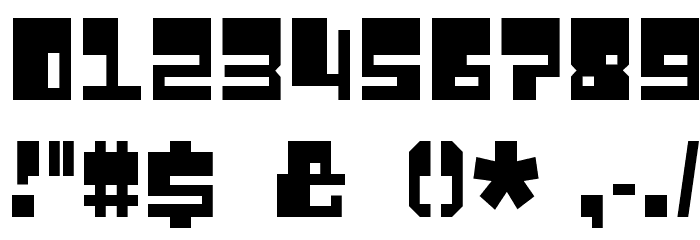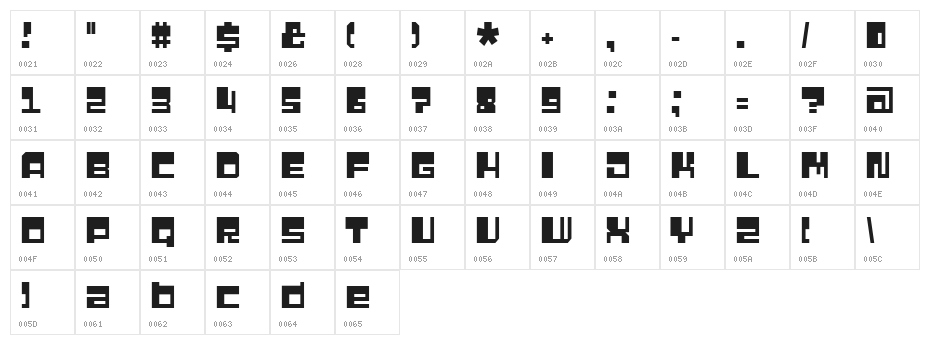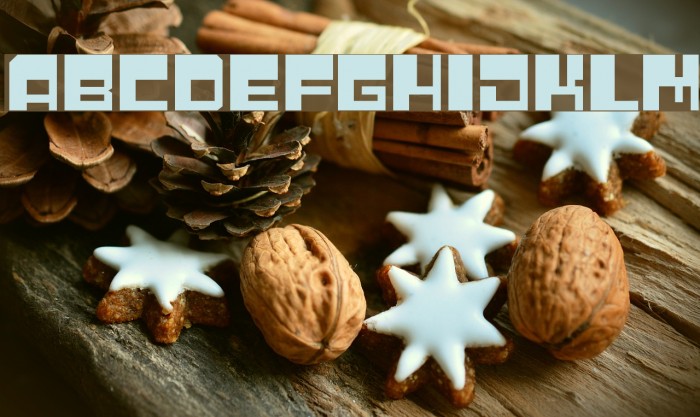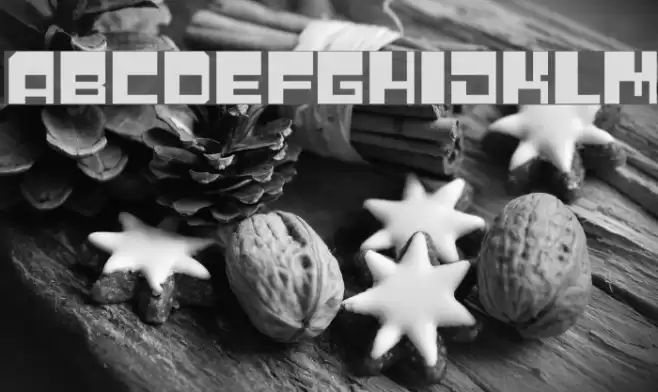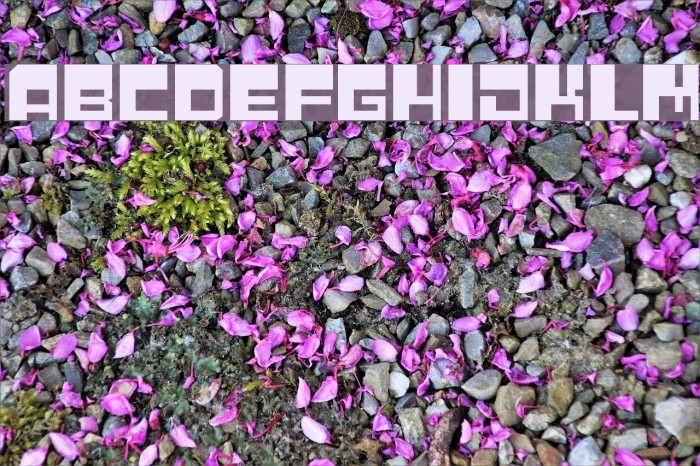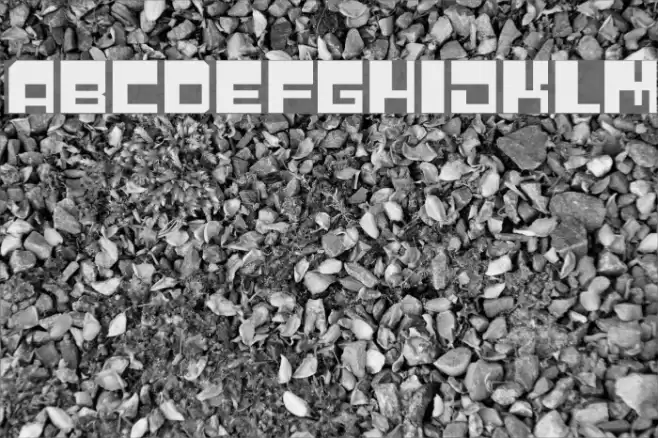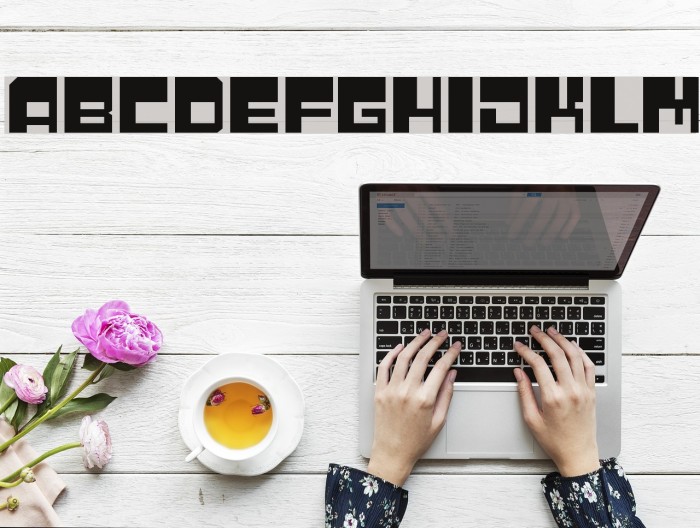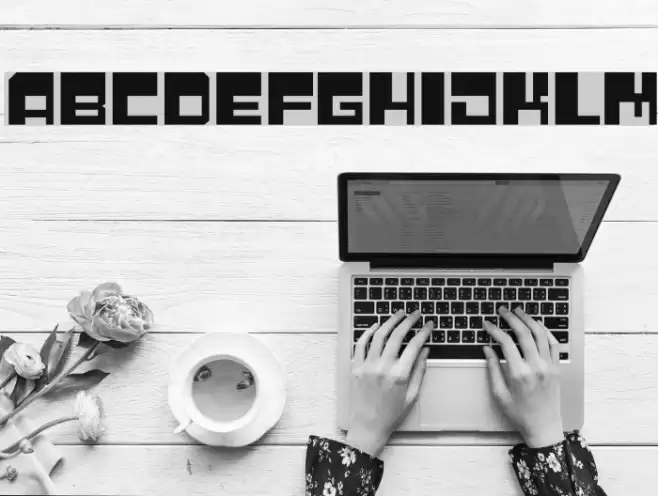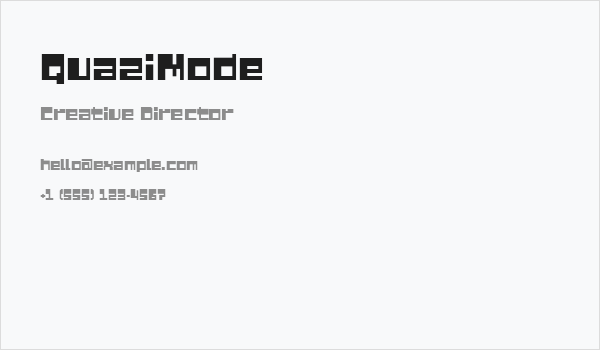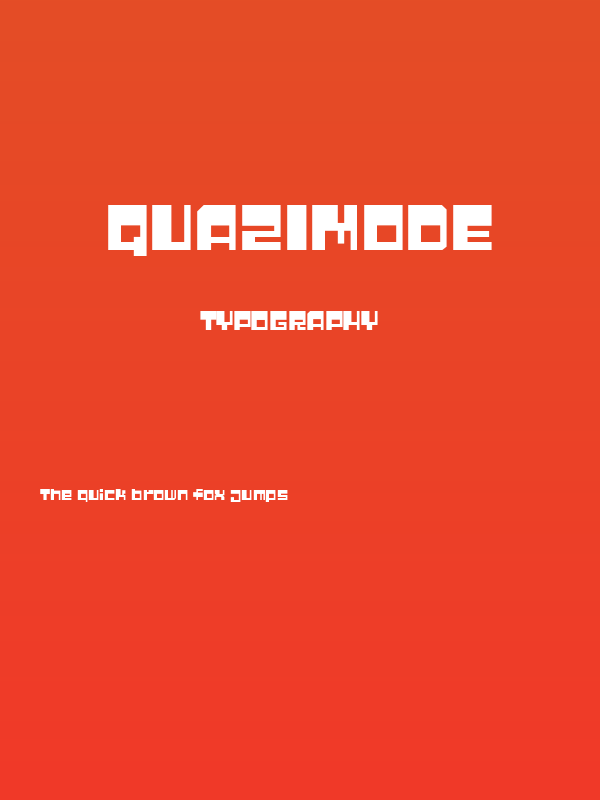
QuaziMode Font
QuaziMode Description
This font features a bold, geometric design with a distinct blocky appearance. Each character is crafted with sharp angles and straight lines, giving it a futuristic and digital feel. The uppercase and lowercase letters maintain a consistent height, enhancing the uniformity of the typeface. The numbers and special characters follow the same angular style, ensuring a cohesive look across all symbols. This font's unique structure makes it stand out, ideal for projects that require a modern and edgy aesthetic.
| Proposed Projects | Ideal for video game titles, tech branding, posters, and digital media projects. |